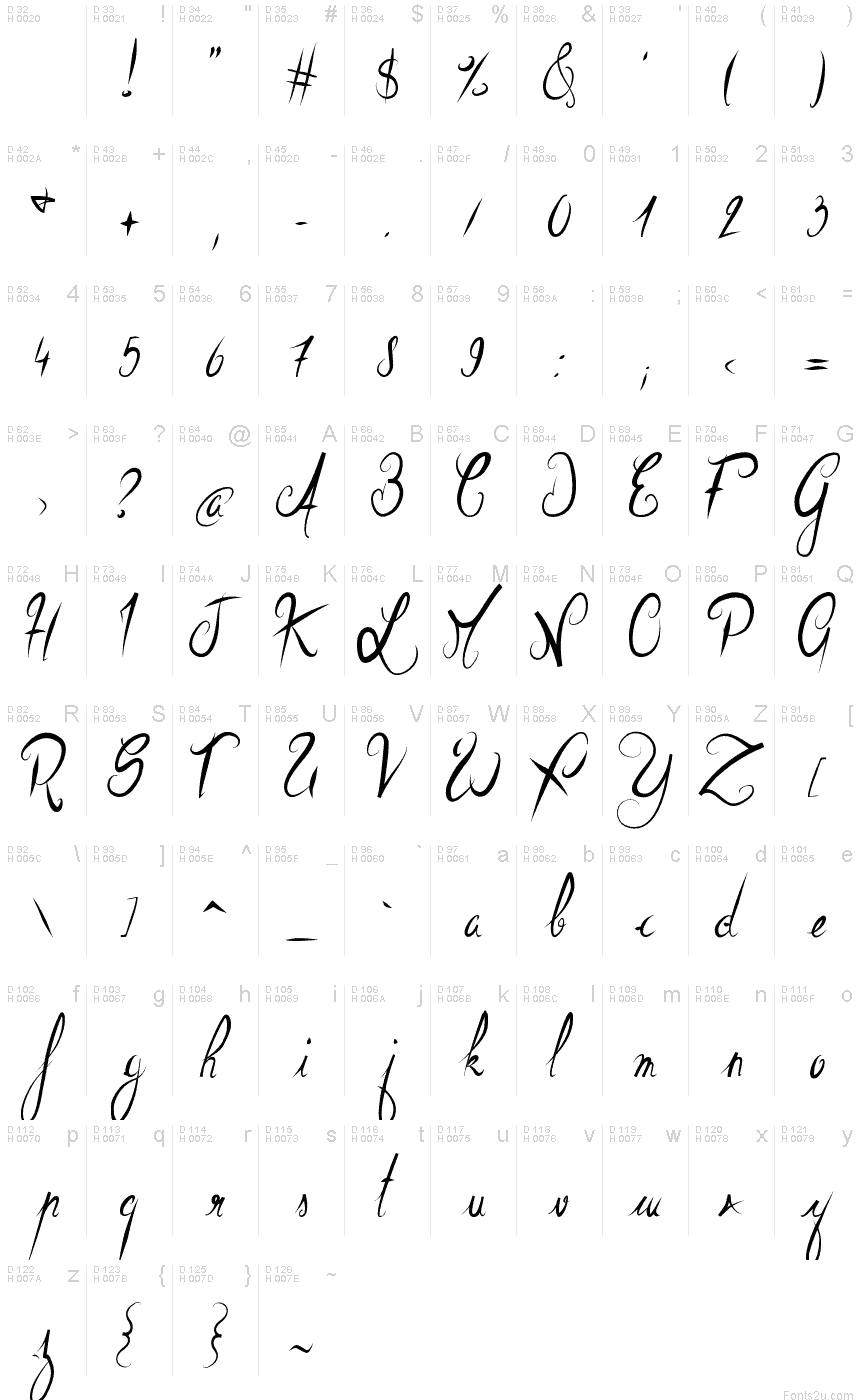
ElegantDragonRegular
ElegantDragon by Nwardesign is a free calligraphic script with sweeping capitals and dramatic changes from hairline curves to broad, dark strokes. Long loops and pointed flourishes give the lettering an extravagant, fashion-minded silhouette. The lettering is distinctly formal and ornate.
A luxury beauty or fragrance brand could use its fluid shapes for packaging and campaign graphics. The same theatrical line suits wedding invitations and formal event materials, where the flourishes can echo ribbons or decorative borders. In publishing, it is best suited to fashion cover lines or feature openers that need lettering with a lavish editorial manner.